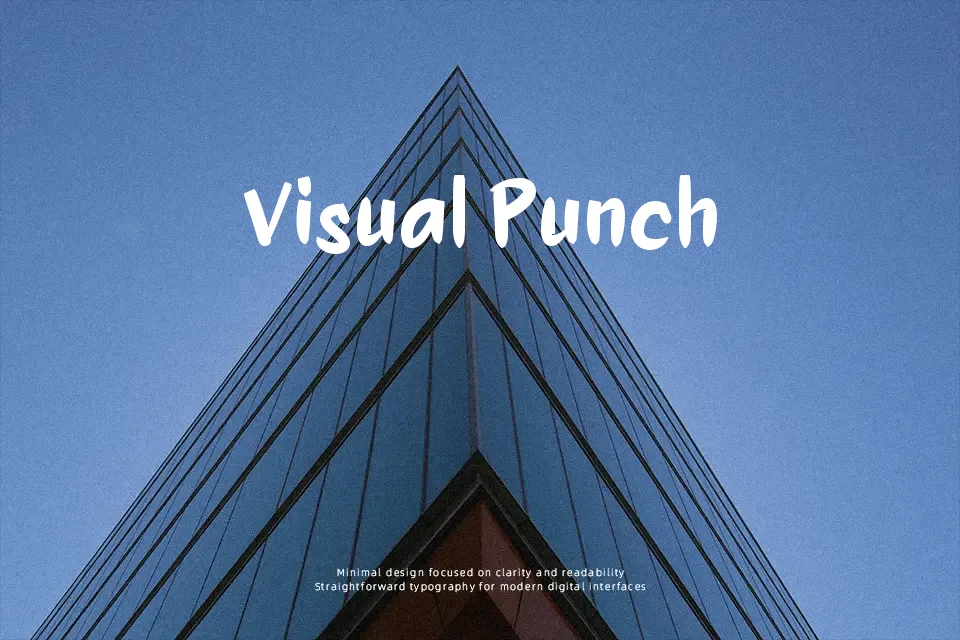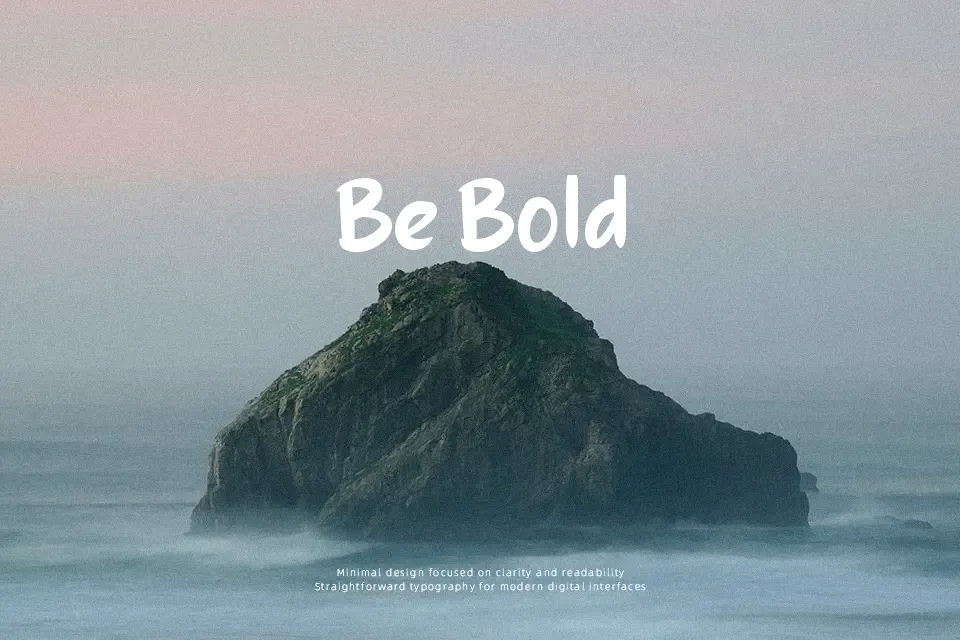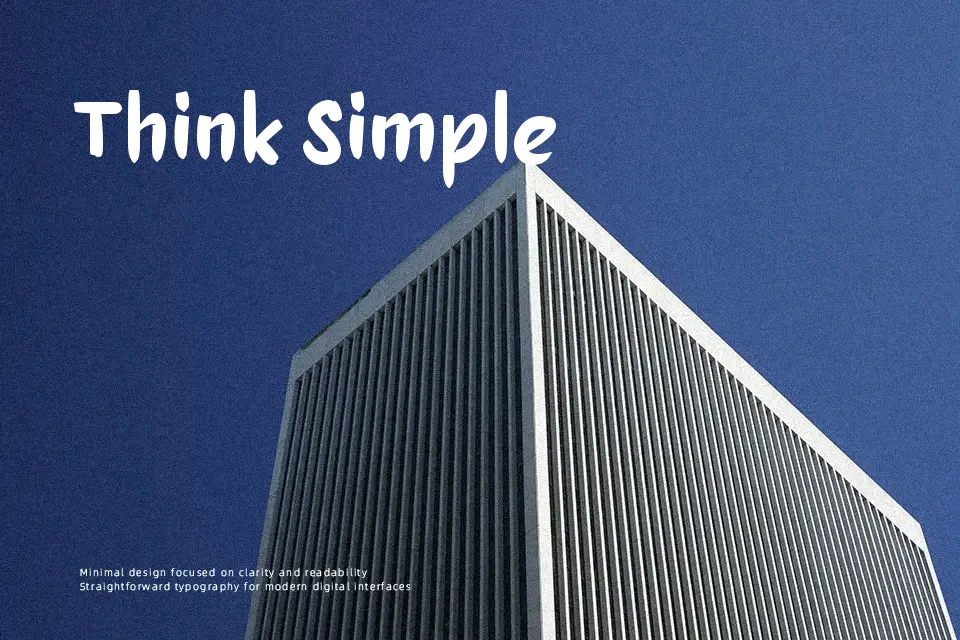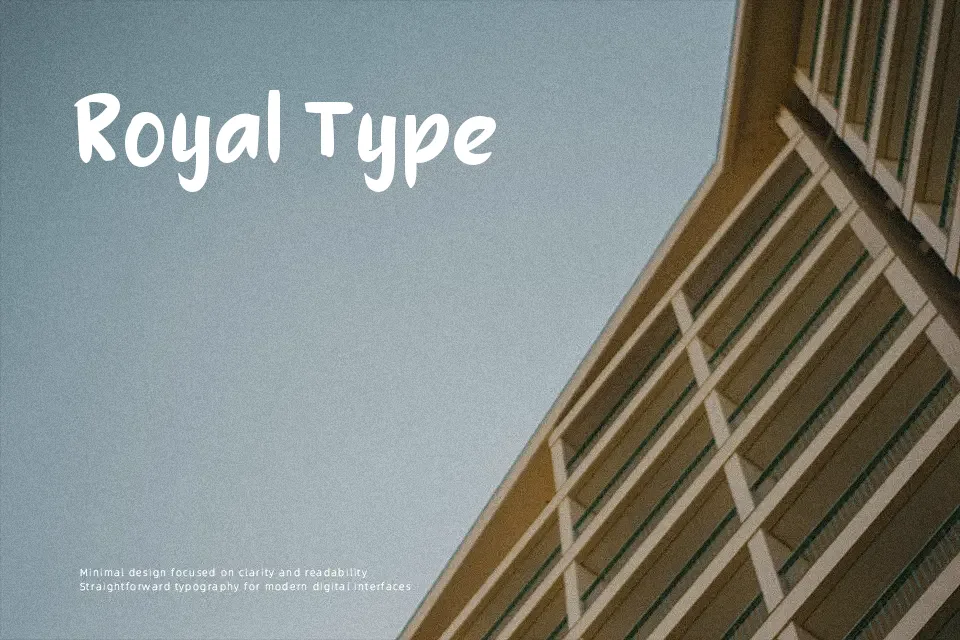
B Beshary Font
B Beshary features soft, rounded shapes, modest stroke contrast, and relaxed spacing that gives each letter a loose, sketchy rhythm. The style leans decorative and comic, so text comes across as informal and approachable rather than strict or corporate. It fits headlines on kids’ party flyers, playful restaurant chalkboard menus, or character names in a comic-style poster where personality matters more than precision. Because it is a fancy comic display face with only one regular style, it does not read comfortably in long paragraphs or dense editorial layouts. Use it when you need a fun accent, but switch to a cleaner sans serif for serious body copy or professional reports.
kids party poster titles
casual social media quote images
playful restaurant or food truck menus
long paragraph text or articles
formal business documents and reports
minimalist corporate branding systems
small-size UI labels or captions
Perfect for headline, logo, and poster, with a artistic and comic style.